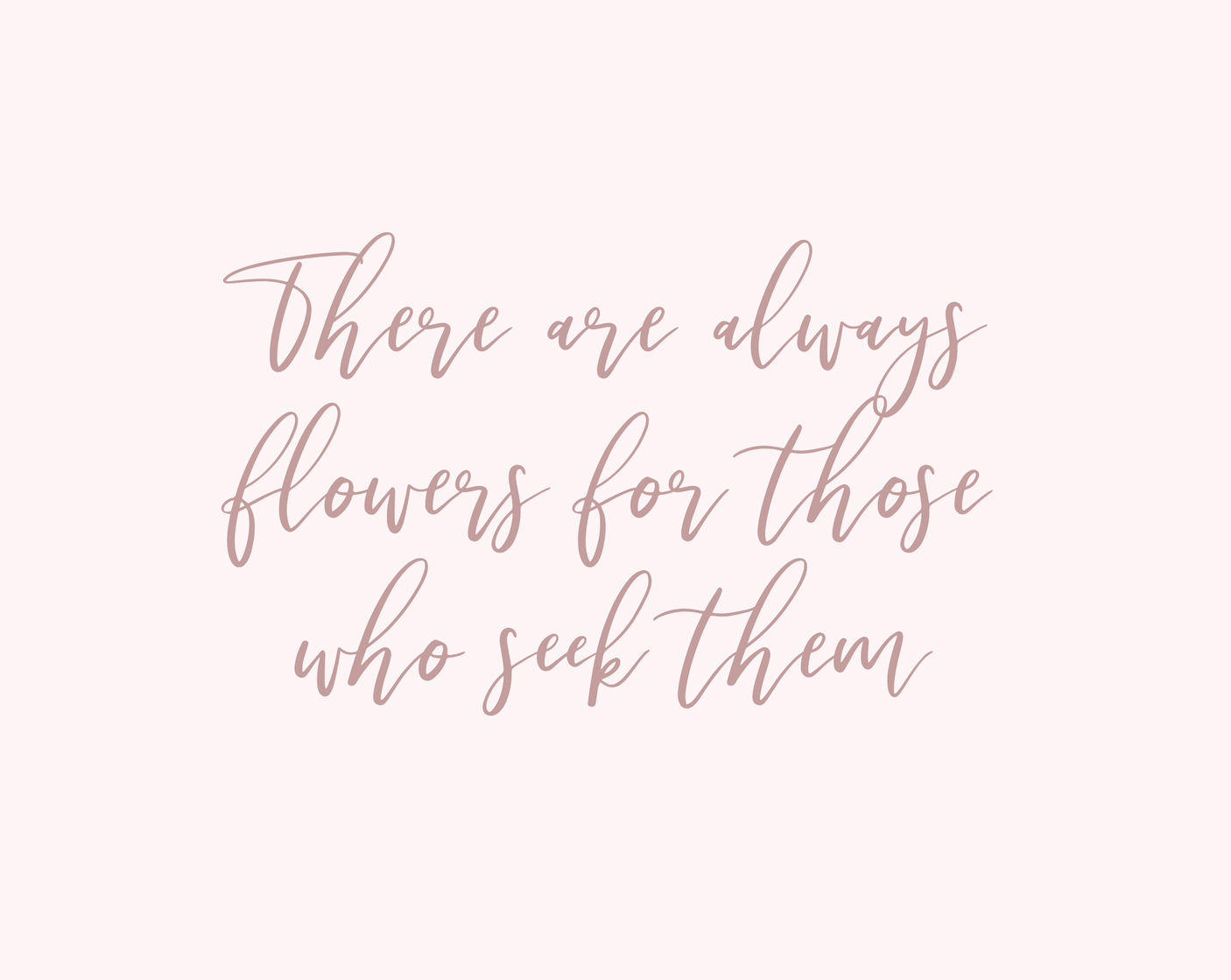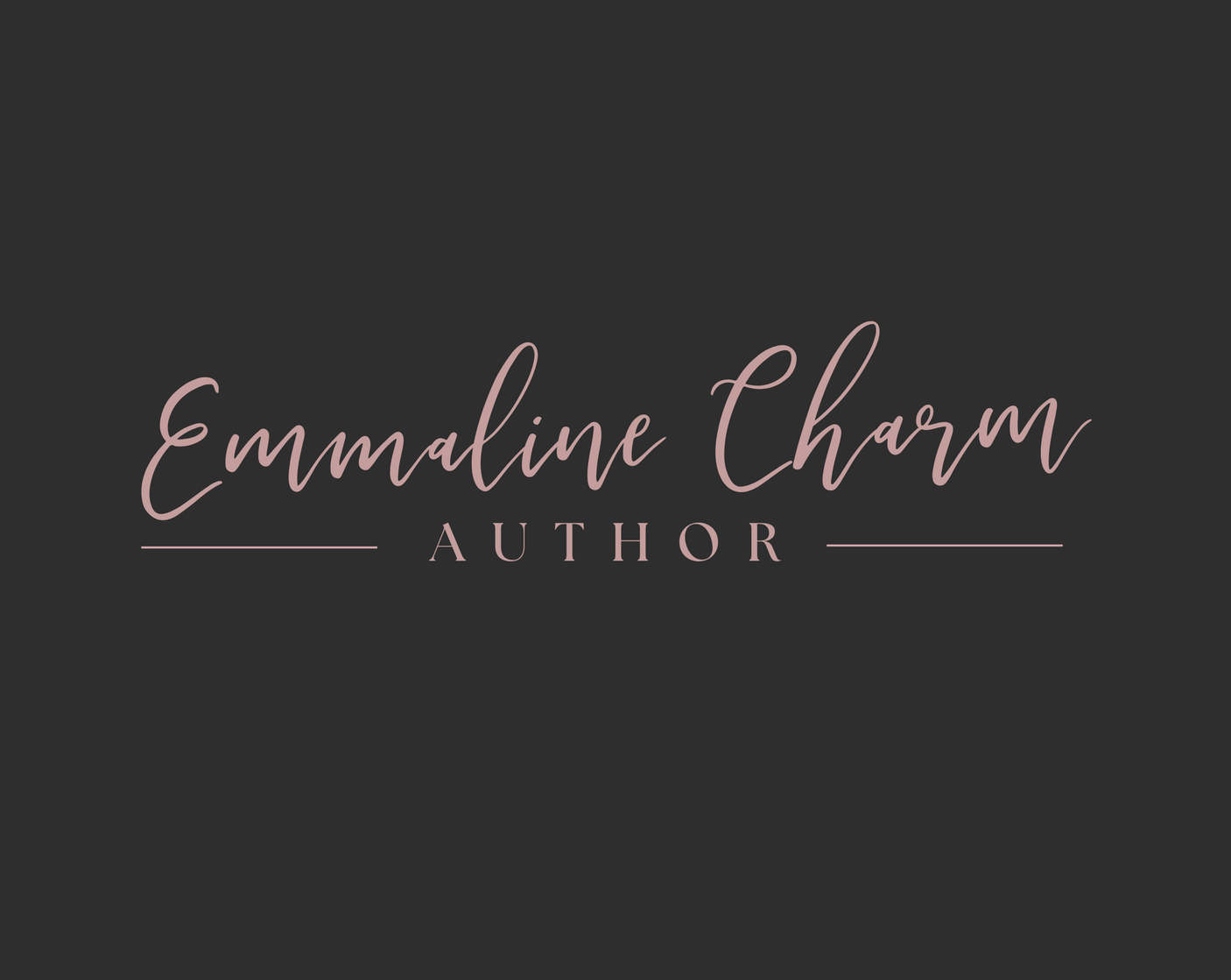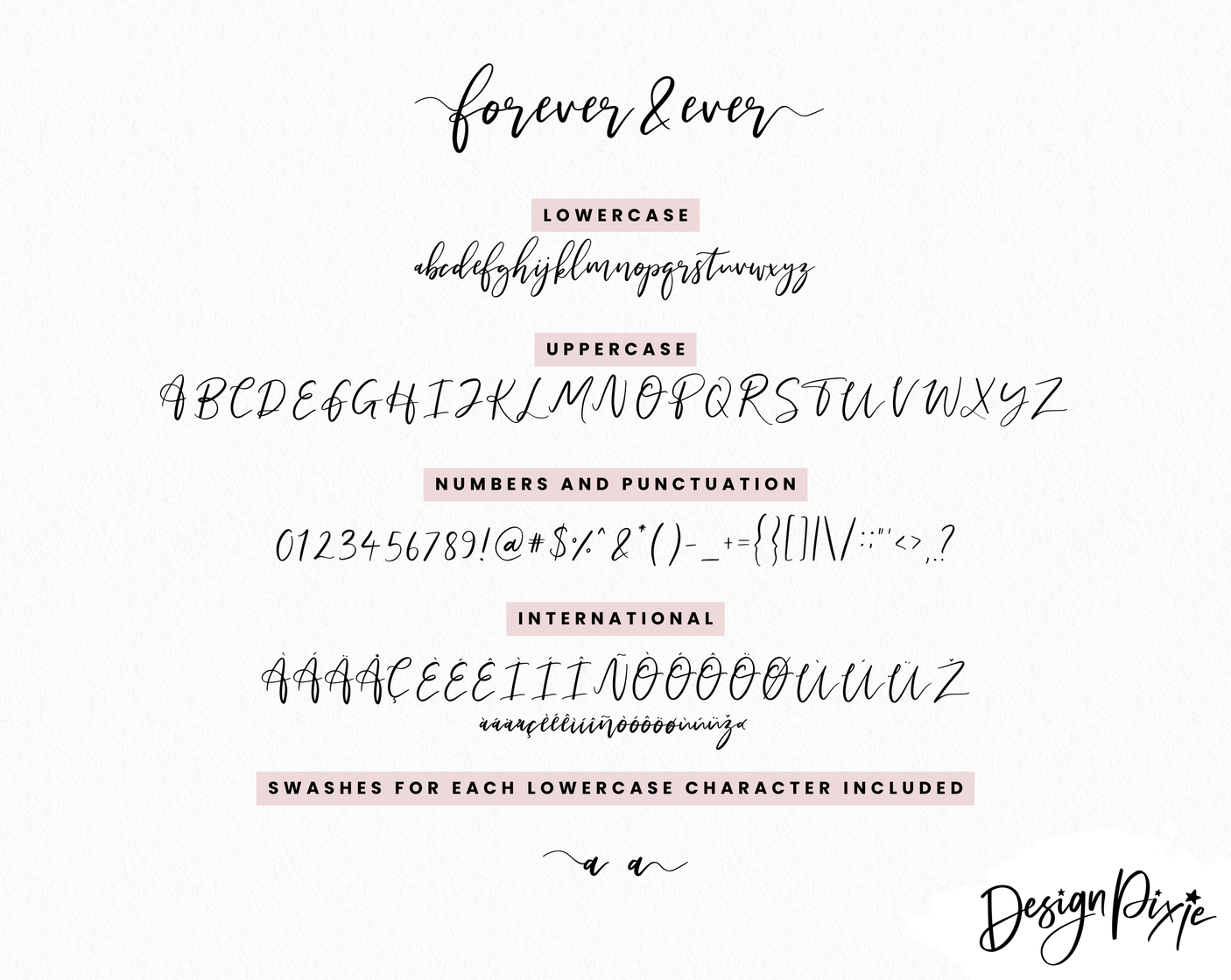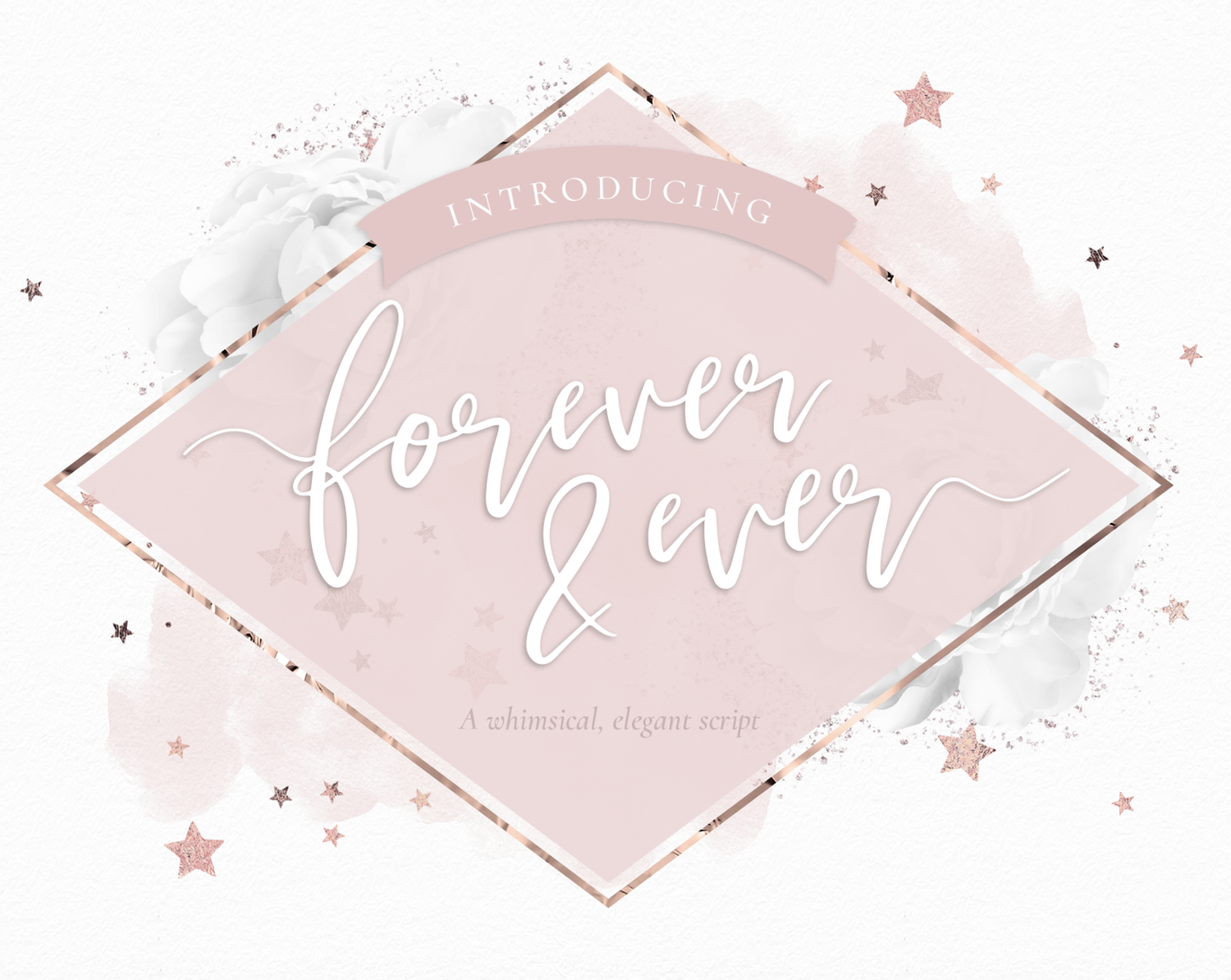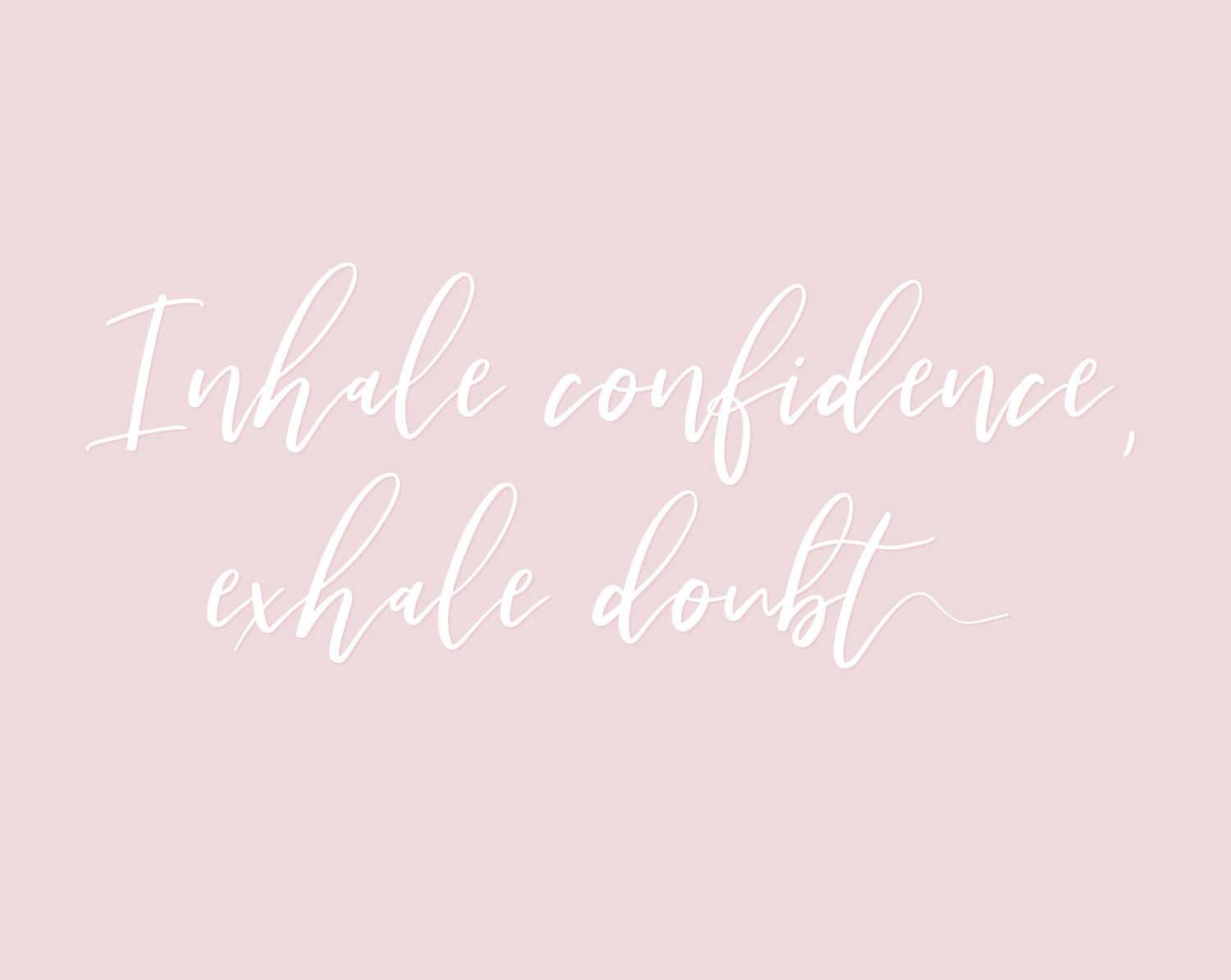
Forever And Ever Font
Meet Forever And Ever, an elegant, whimsical script font that feels like it’s straight out of a fairytale. With smooth curves, graceful movement, and optional swash lines on every character, this font adds a touch of romantic magic to any design.
Perfect for logos, branding, authors, book covers, invitations, stationery, and anything that deserves a little extra charm. Whether you keep it simple or add the swooping swashes, Forever And Ever lets your words dance beautifully across the page.
Forever And Ever is perfect for dreamers, storytellers, and creatives who want their designs to feel effortlessly elegant - forever and ever.